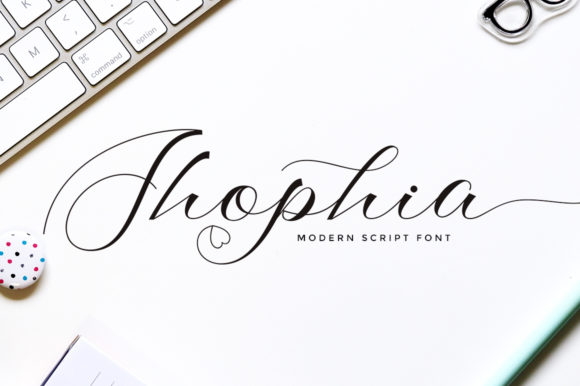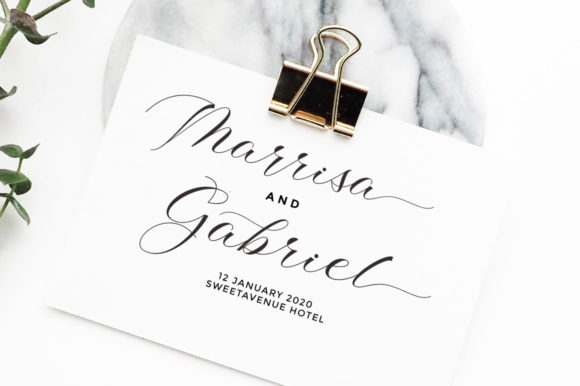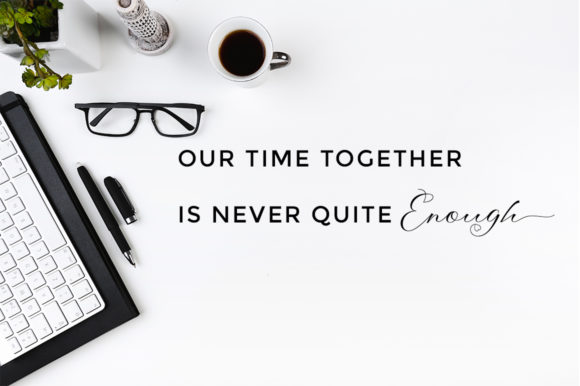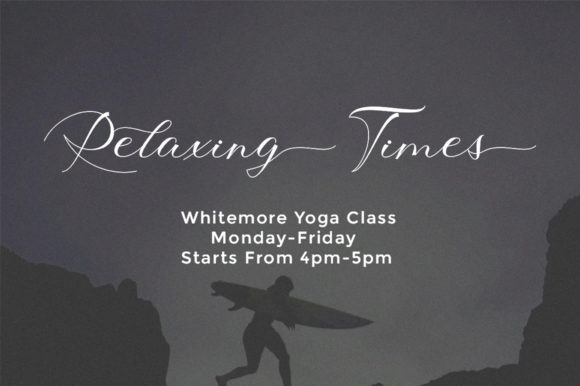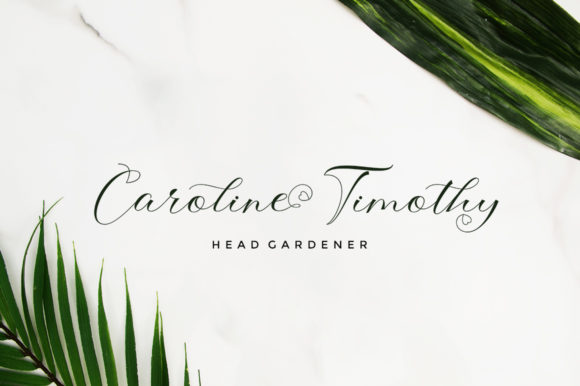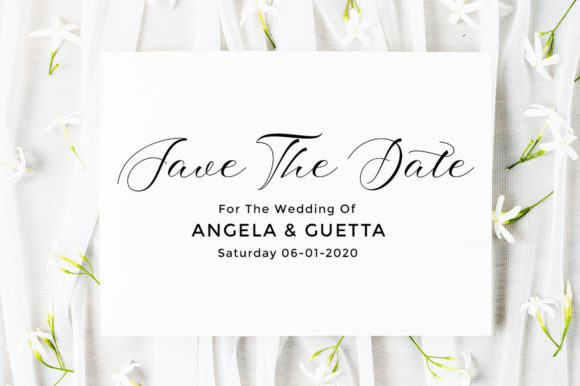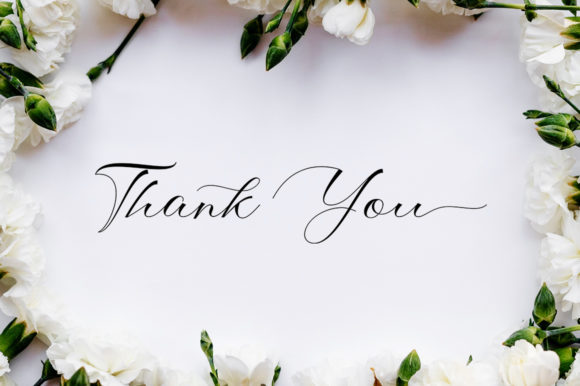
Shophia Font
About Shophia Font
Shophia is an elegant calligraphy font, designed to convey sophistication and style. It is slender, delicate and friendly, and contains dazzling swashes.